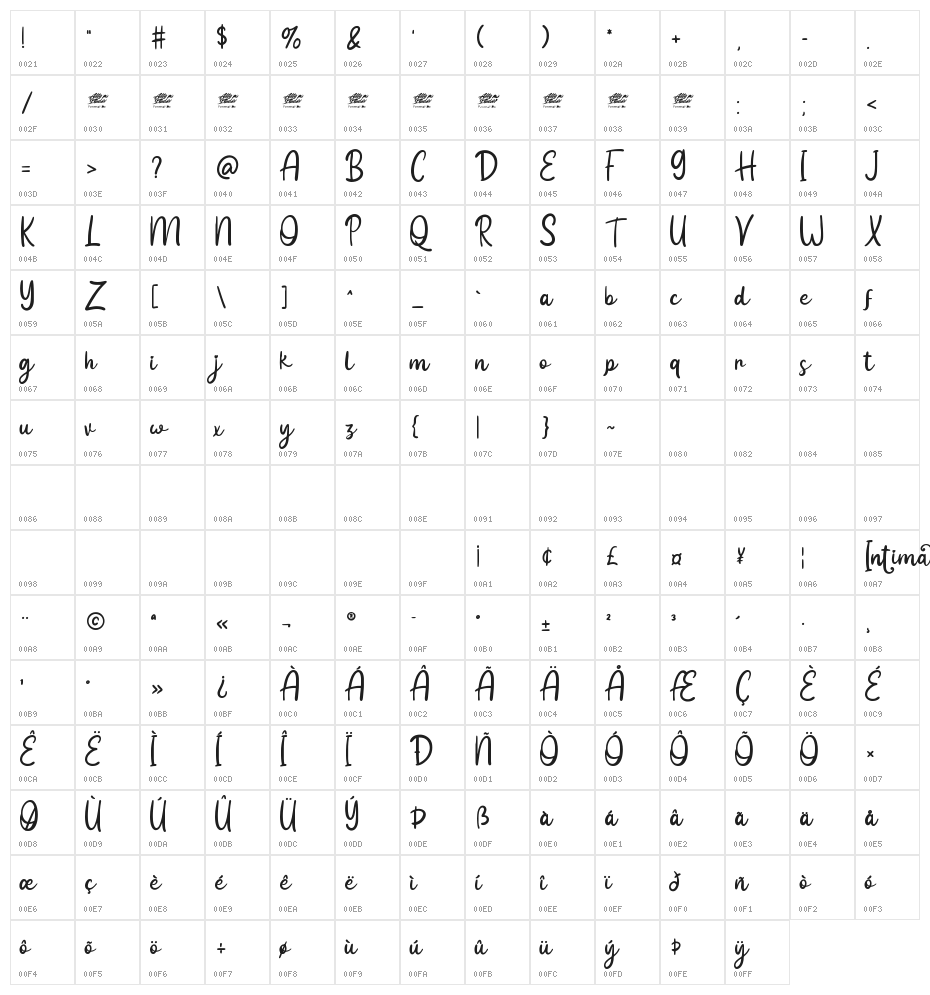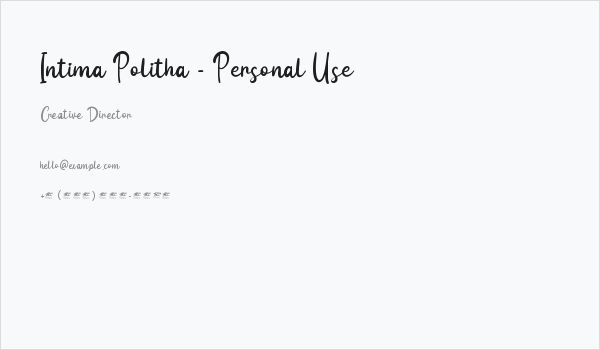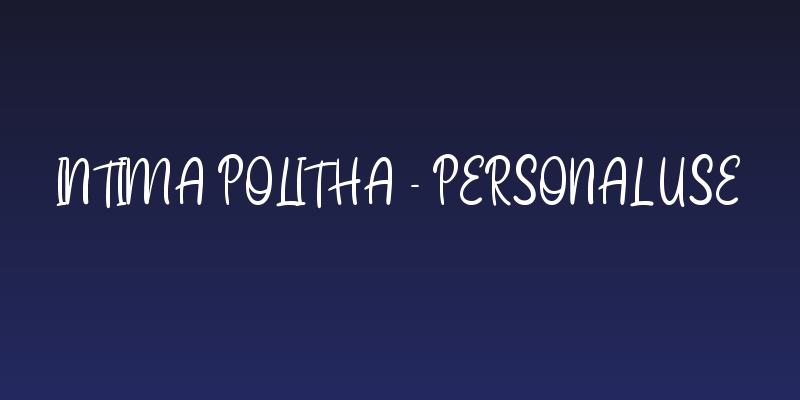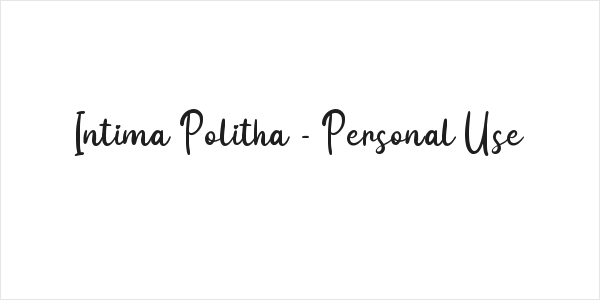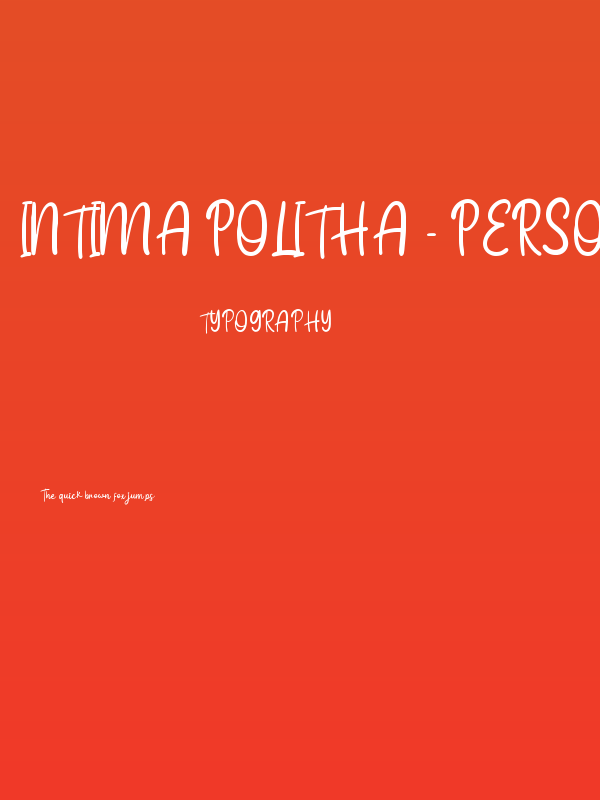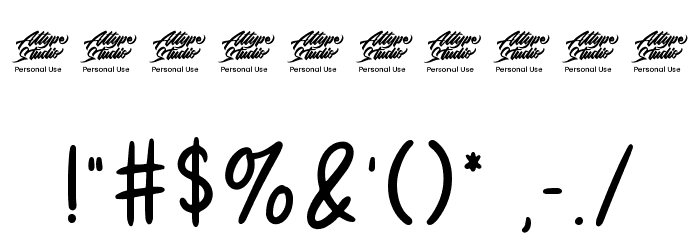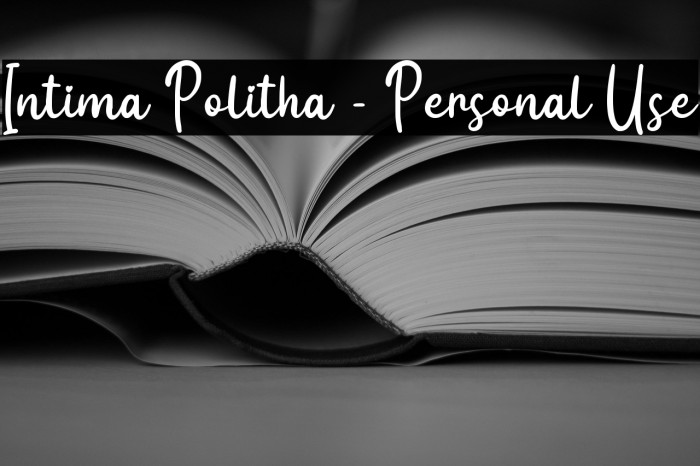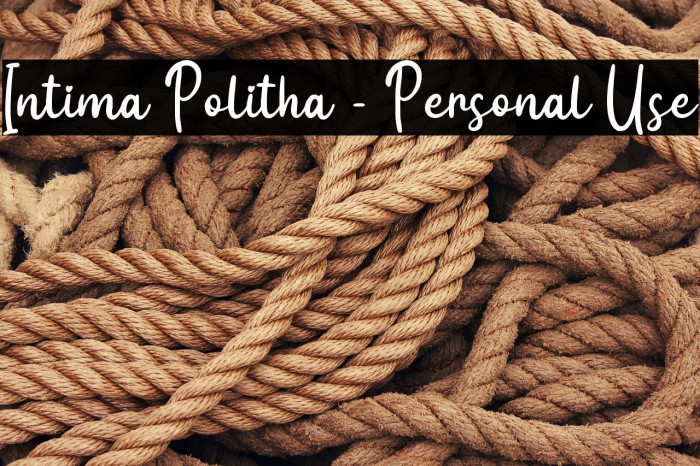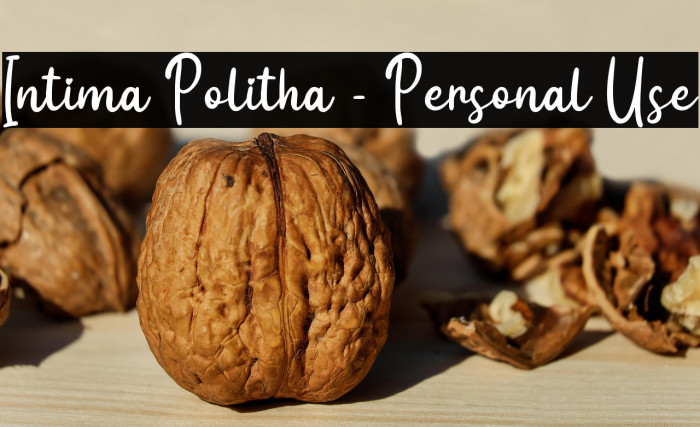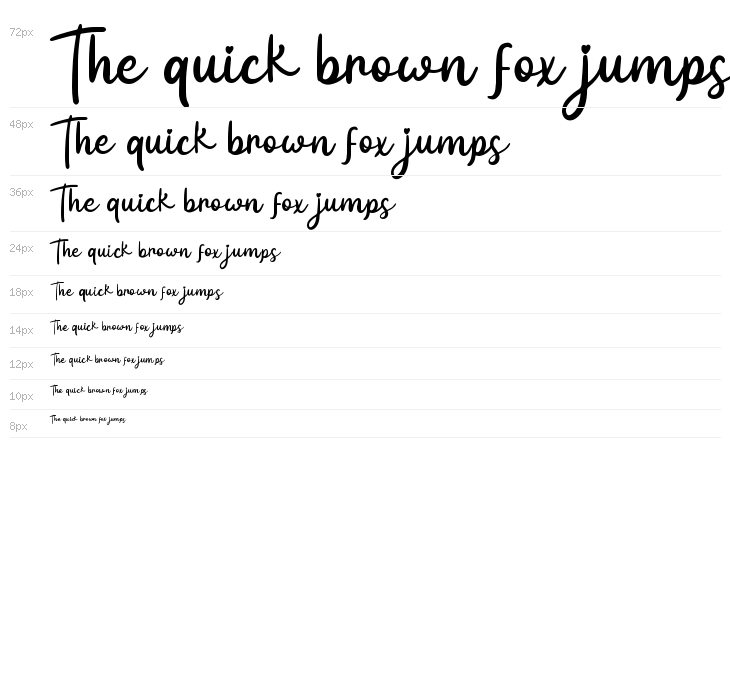
Intima Politha - Personal Use Font
Intima Politha - Personal Use Description
This font features a playful and casual handwritten style, characterized by its fluid and slightly irregular strokes. The uppercase letters are tall and narrow, with a slight slant that adds a dynamic feel. The lowercase letters maintain a consistent flow, enhancing the handwritten aesthetic. The font includes a full set of numerals and a variety of special characters, making it versatile for different design needs. Its overall appearance is friendly and approachable, making it suitable for projects that require a personal touch.
| Use Case | Logos, Headlines, Social media posts |
| Proposed Projects | Ideal for greeting cards, invitations, personal branding, and social media graphics. |